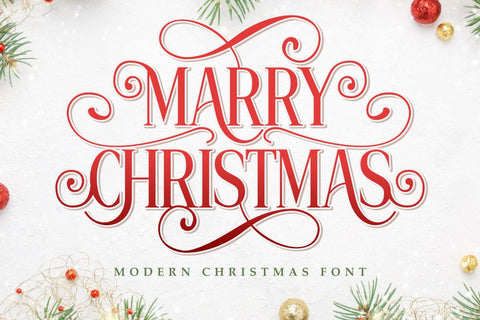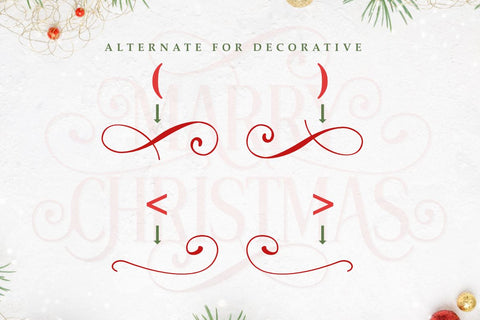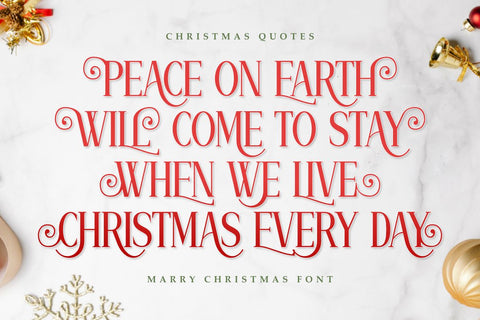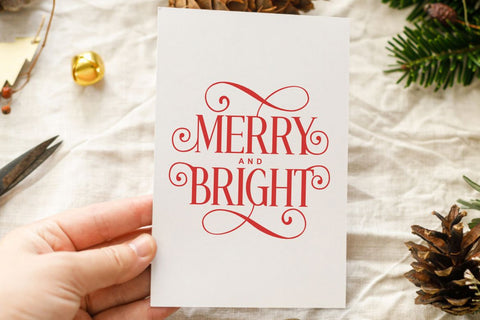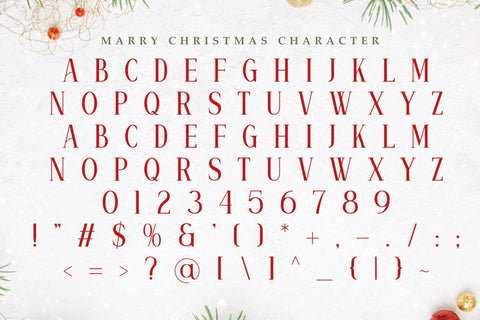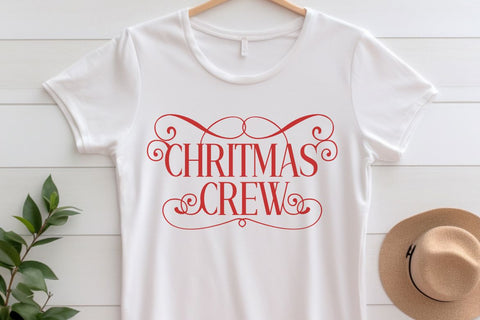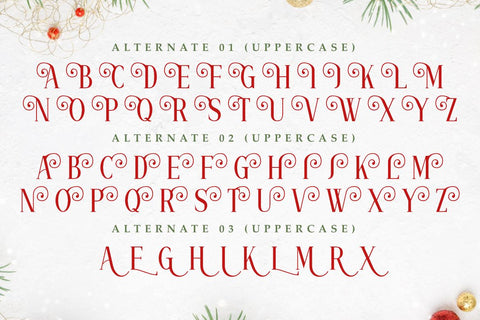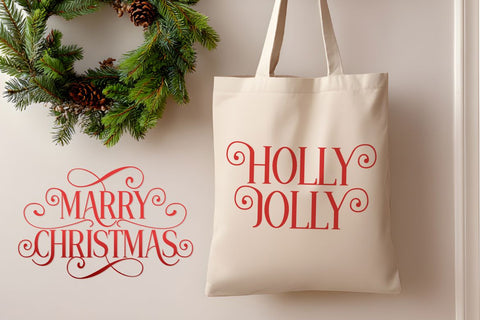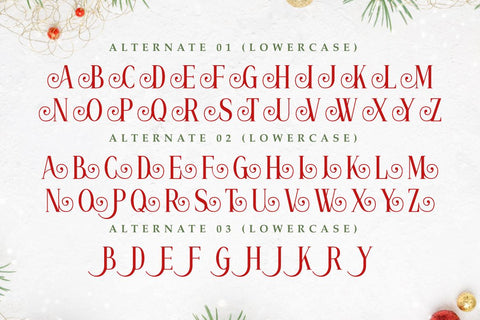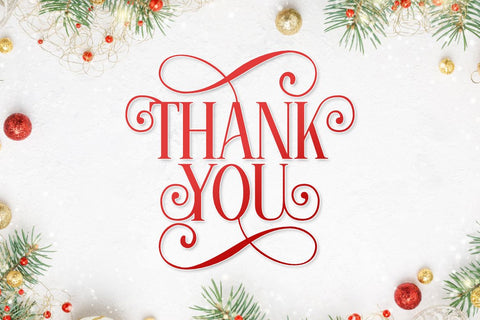
Marry Christmas - Elegant Decorative Font
Marry Christmas is a modern Christmas font inspired by the cozy, elegant, and festive spirit of the holiday season.
This beautiful, flowing typeface features stunning swashes and intricate decorative elements that make it instantly captivating. The detailed styling is designed to bring a touch of classic Christmas charm with a clean, contemporary feel.
Marry Christmas is perfect for creating memorable and high-end finished products. Use it for invitations, greeting cards, Christmas-themed apparel (like t-shirts and hoodies), mugs, tote bags, home decor signs, vinyl decals, and personalized ornaments. It’s also fantastic for digital projects, including social media posts, website banners, and digital scrapbooking.
This font is versatile and pairs wonderfully with minimal or elaborate designs, making it an essential asset for your Print-on-Demand (POD) store, DIY crafts, and all your holiday-related craft projects.
It is Great for holiday themes such as Christmas, New Year, winter celebrations, family gatherings, and seasonal events where an elegant and decorative typography is required. Its charm will ensure your design stands out and captures the festive joy!